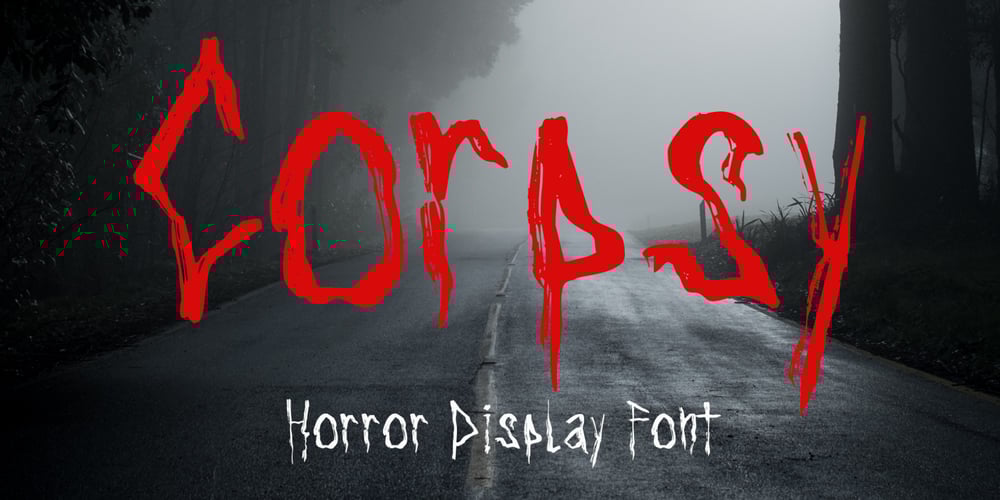
Corpsy Font Family was designed by Mohamad Farhan Ramadhan and published by Mofr24. Corpsy contains 3 styles and family package options. Introducing Corpsy, the horror display font with a trash style and a unique droplet touch. Its spooky design perfectly captures the essence of Halloween, nightmares, and horror. Ideal for posters, t-shirts, art crafts, unique headlines, logotypes, and many more.What makes Corpsy unique is its distinct droplet effect, adding an extra layer of fear to any design. This font also pairs well with other horror-themed families such as Ghoulish and Gruesome.Corpsy comes in various styles, including regular and bold, and boasts an extensive character set, making it versatile for any project. Its special features include ligatures, stylistic alternates, and swashes.The design concept for Corpsy was to create a font that could embody the essence of all things horror, yet still retain a unique and identifiable style. We wanted to create a font that could stand out amongst the other horror display fonts available.We created Corpsy for designers who wanted to create horror-themed designs that were more than just clichés. This font is perfect for those looking to push the boundaries of horror design and create something new and unique.Corpsy is not a revival or based on any historical design. It was created from scratch, with the goal of becoming a staple font in the horror design world. Try Corpsy today, and take your horror designs to the next level.